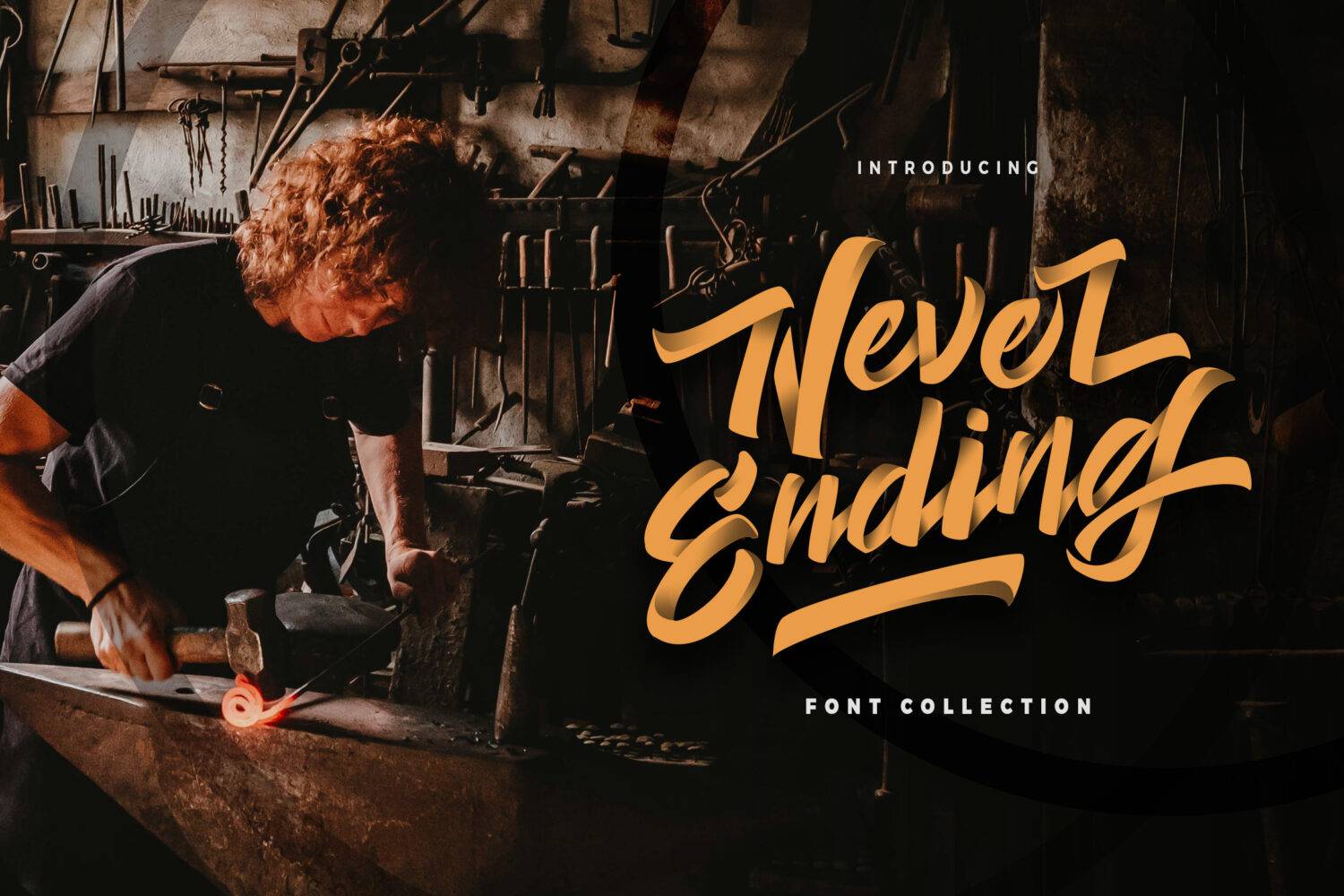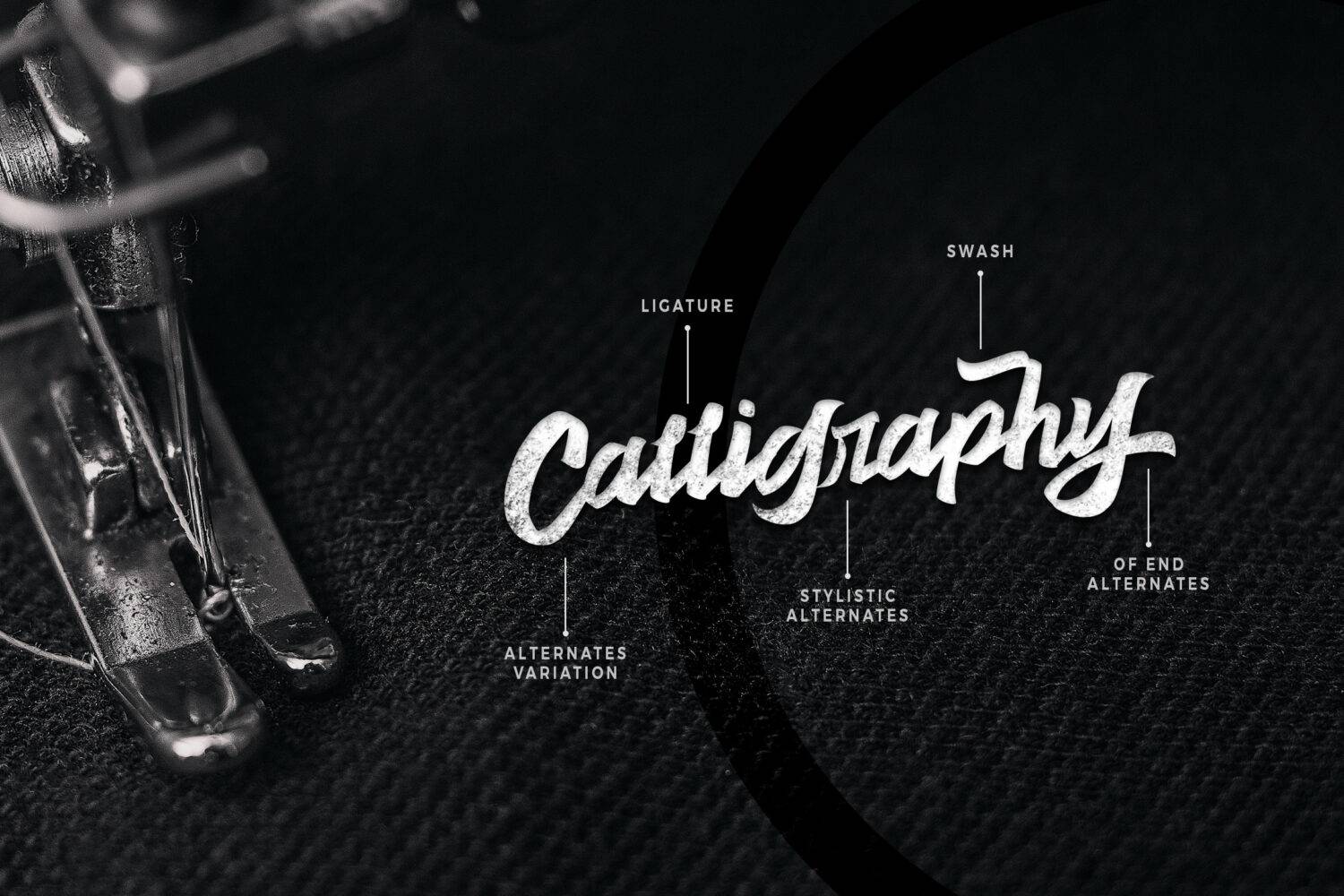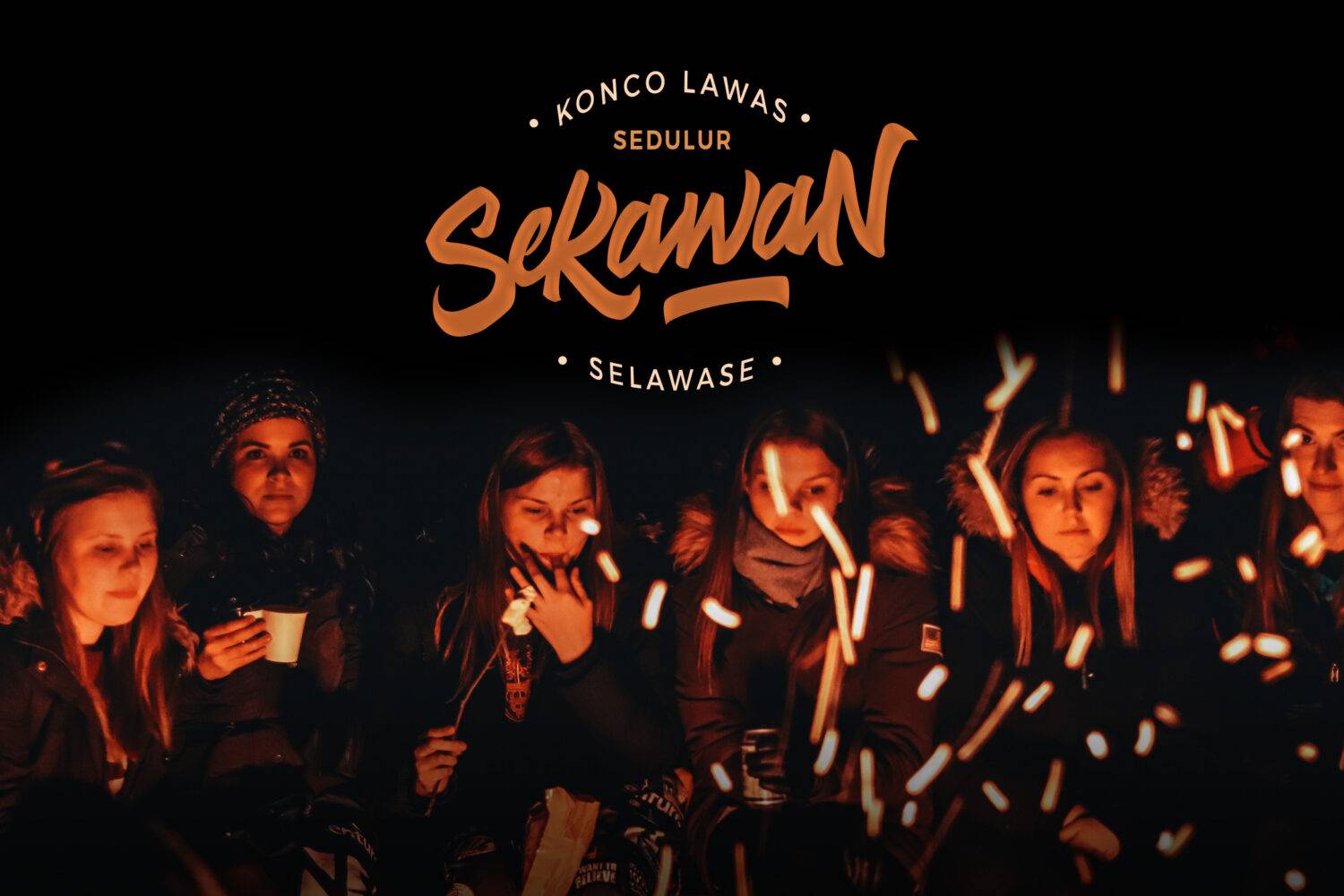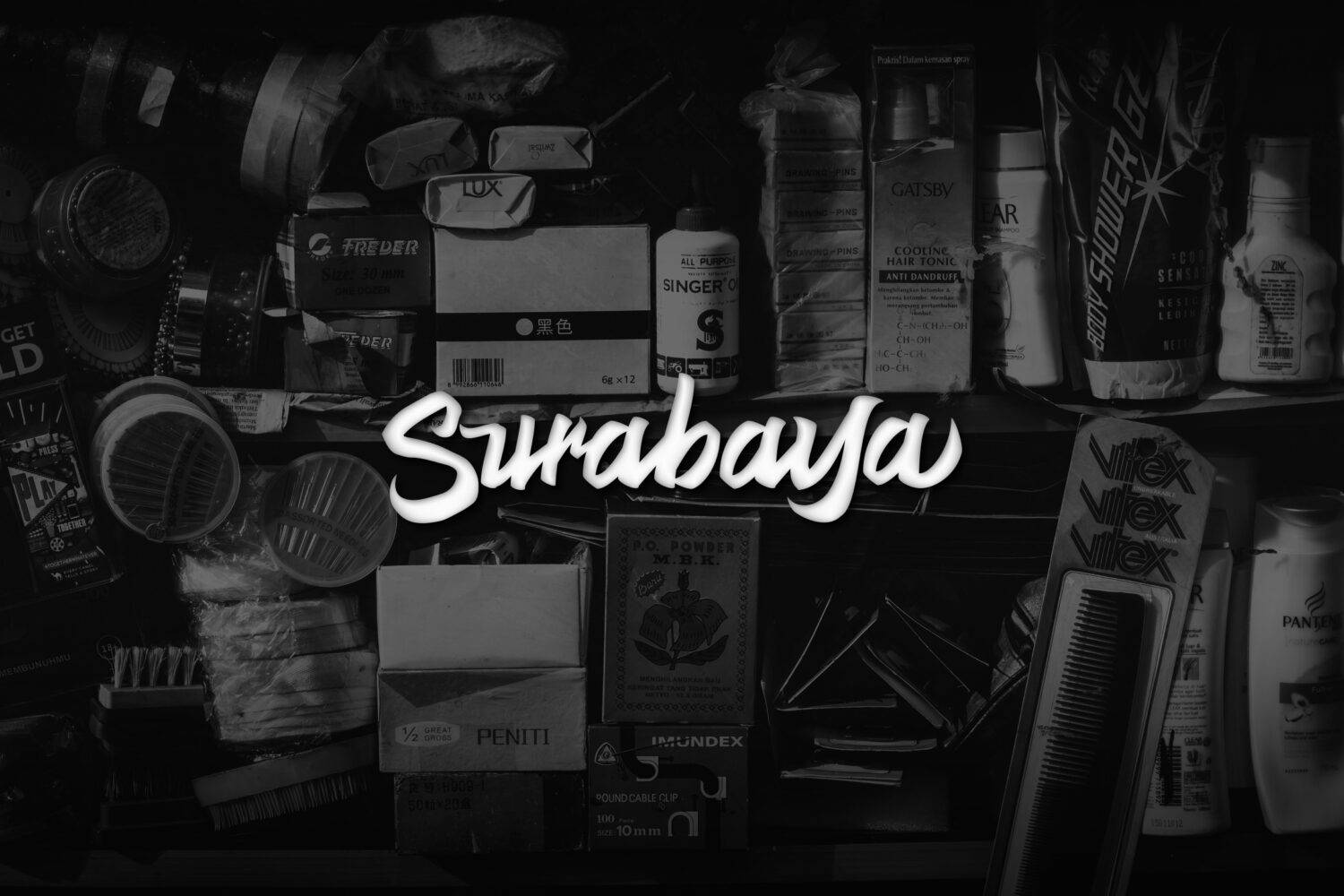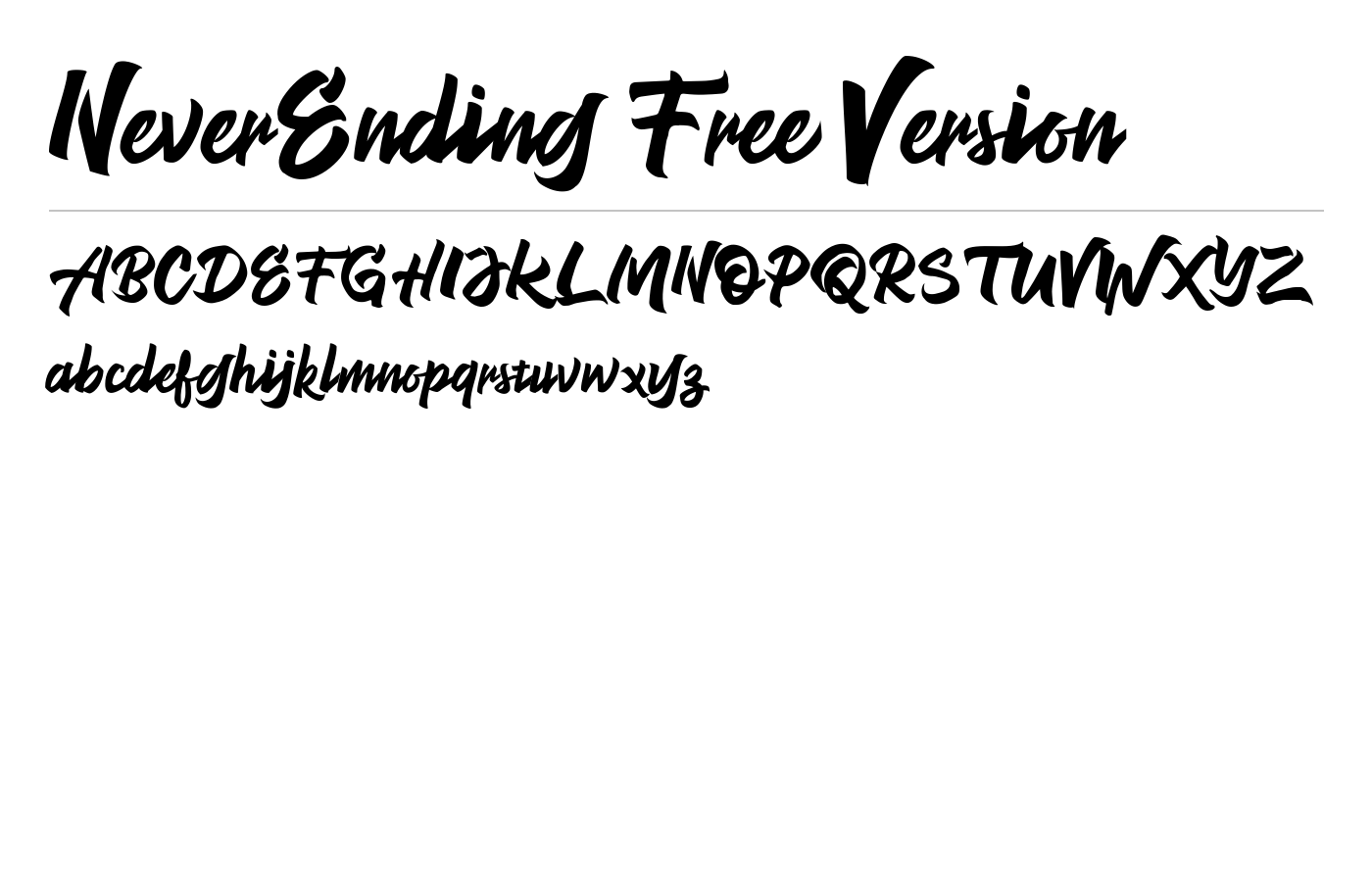
Never Ending Font is a bold, energetic script typeface with a lively, hand-brushed style that feels informal yet impactful. Its flowing strokes and dynamic letterforms make it ideal for creative projects, logos, and headlines where a playful and approachable vibe is desired. This font works well in branding and display uses, adding personality and a sense of movement to any design.
Never Ending Font
About Never Ending Font